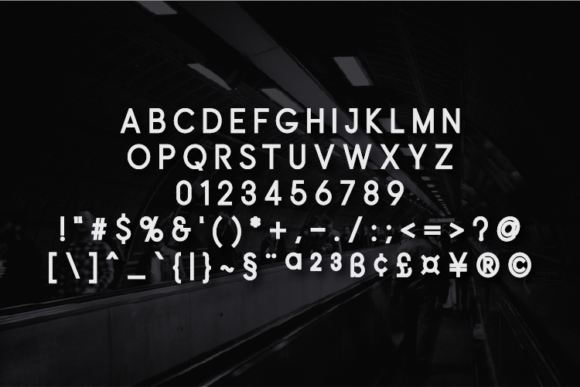
Introducing Colerone Font: The Ultimate Modern Sans Serif for Designers and Crafters
In the world of typography, fonts play a crucial role in conveying messages, expressing emotions, and creating visual identities. For designers and crafters, finding the perfect font can be a daunting task, especially when it comes to creating modern and classy designs. This is where Colerone Font comes in – a stunning sans serif font that has taken the design community by storm. In this article, we’ll dive into the world of Colerone Font, exploring its features, benefits, and uses, as well as provide tips and inspiration for designers and crafters.
What is Colerone Font?
Colerone Font is a modern and classy sans serif font designed to elevate your designs to the next level. Its clean lines, elegant curves, and sophisticated style make it perfect for a wide range of applications, from logos and flyers to quotes and magazines. Whether you’re a professional designer or a crafty DIY enthusiast, Colerone Font is an excellent addition to your typography arsenal.
Key Features of Colerone Font
- Modern and Classy Design: Colerone Font boasts a sleek and contemporary design that’s sure to impress. Its sans serif style gives it a clean and minimalist look, while its elegant curves add a touch of sophistication.
- Versatile and Adaptable: Colerone Font is incredibly versatile and can be used for a wide range of projects, from branding and advertising to publishing and digital media.
- Easy to Read: The font’s clear and legible design makes it easy to read, even at small sizes, ensuring that your message gets across effectively.
Benefits of Using Colerone Font
So, why choose Colerone Font for your design projects? Here are just a few benefits of using this amazing font:
- Instant Professionalism: Colerone Font gives your designs an instant professional look, making them perfect for business and commercial applications.
- Emotional Connection: The font’s elegant design helps create an emotional connection with your audience, making your message more relatable and memorable.
- Flexibility: Colerone Font can be used for both digital and print projects, making it a great addition to your design library.
- Unique and Creative: With Colerone Font, you can create unique and creative designs that stand out from the crowd.
Uses of Colerone Font
Colerone Font is an incredibly versatile font that can be used for a wide range of projects, including:
- Logo Design: Create stunning logos that make a lasting impression with Colerone Font.
- Flyers and Brochures: Use Colerone Font to create eye-catching flyers and brochures that grab attention.
- Quotes and Posters: Add a touch of elegance to your quotes and posters with Colerone Font.
- Magazines and Newspapers: Use Colerone Font to create visually appealing magazine and newspaper layouts.
- Digital Media: Colerone Font is perfect for digital media, including social media graphics, website headers, and more.
Tips for Using Colerone Font
Here are some tips for getting the most out of Colerone Font:
- Experiment with Sizes: Play around with different font sizes to create visual interest and hierarchy.
- Pair with Other Fonts: Combine Colerone Font with other fonts to create unique and creative typography.
- Use Colors Wisely: Choose colors that complement the font and enhance the overall design.
- Keep it Simple: Don’t be afraid to keep things simple and elegant – Colerone Font is designed to shine on its own.
In conclusion, Colerone Font is an exceptional modern sans serif font that’s perfect for designers and crafters looking to elevate their designs. Its clean lines, elegant curves, and sophisticated style make it versatile and adaptable, suitable for a wide range of applications. Whether you’re creating logos, flyers, quotes, or magazines, Colerone Font is an excellent choice. With its high-quality vector format, ease of use, and instant professionalism, Colerone Font is a valuable addition to any design library.